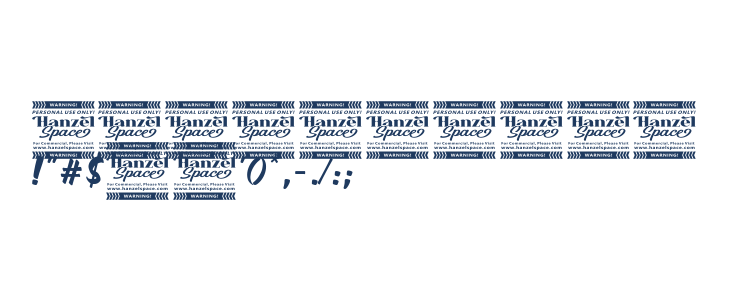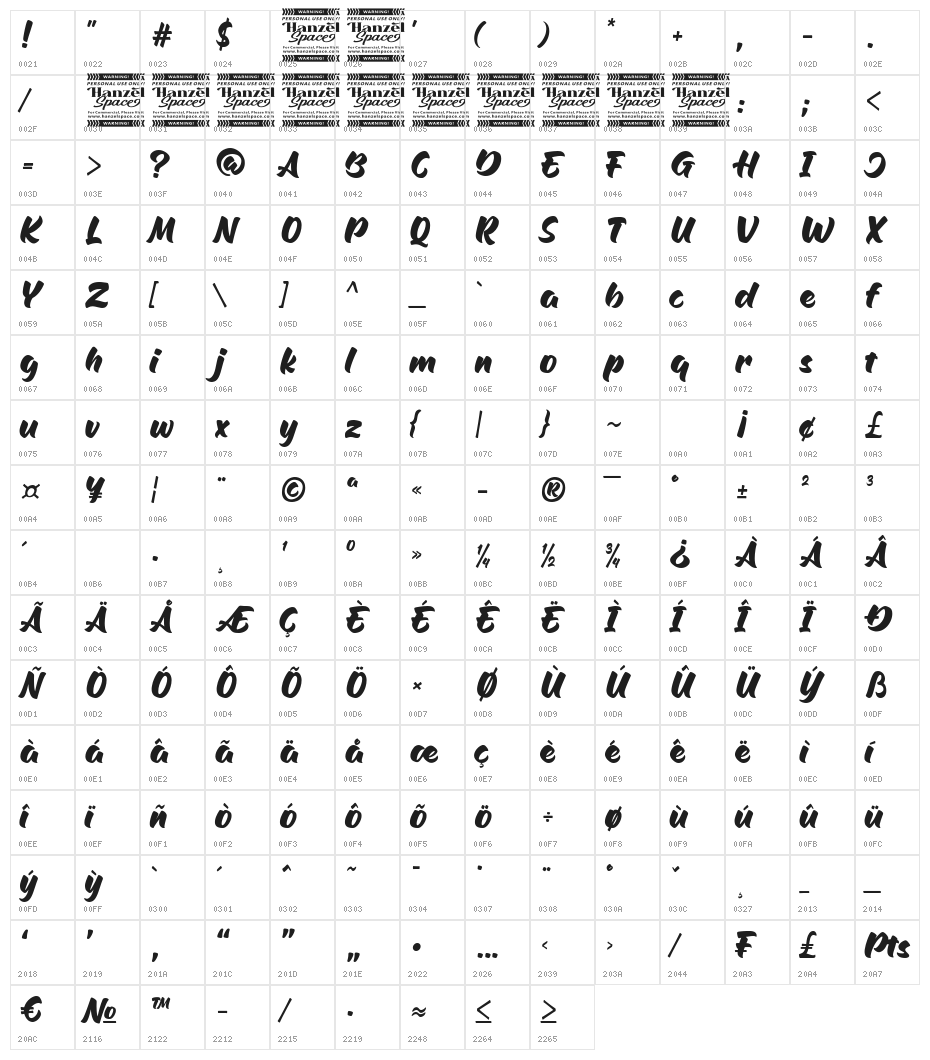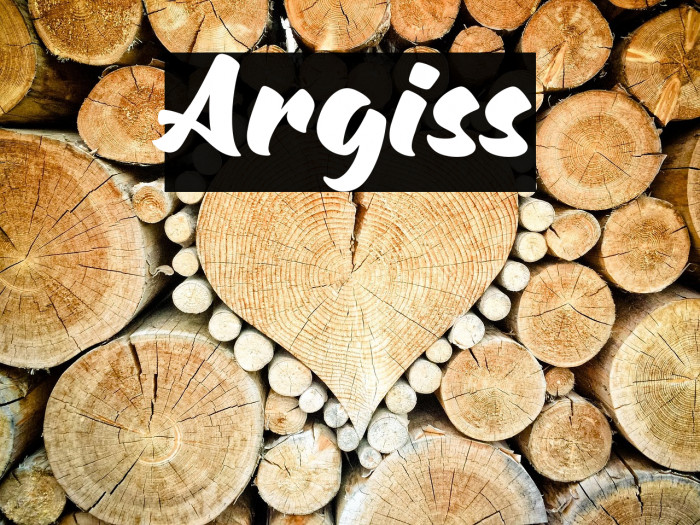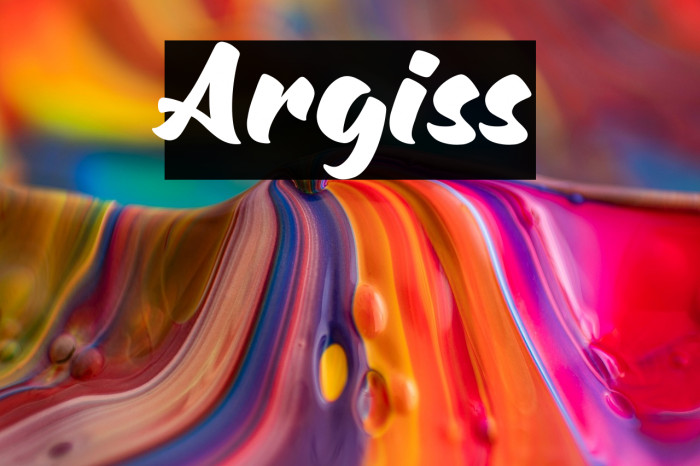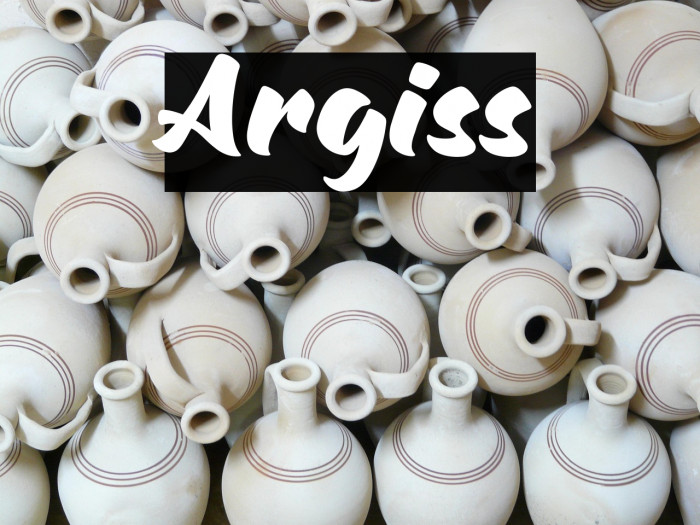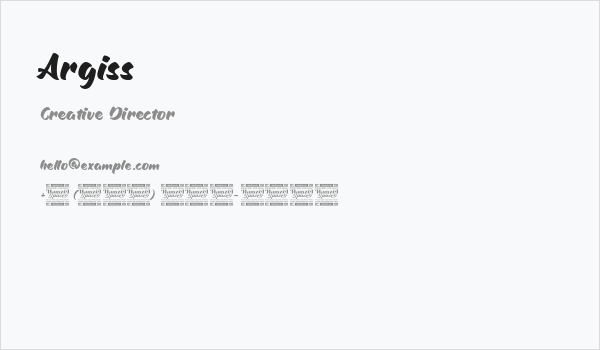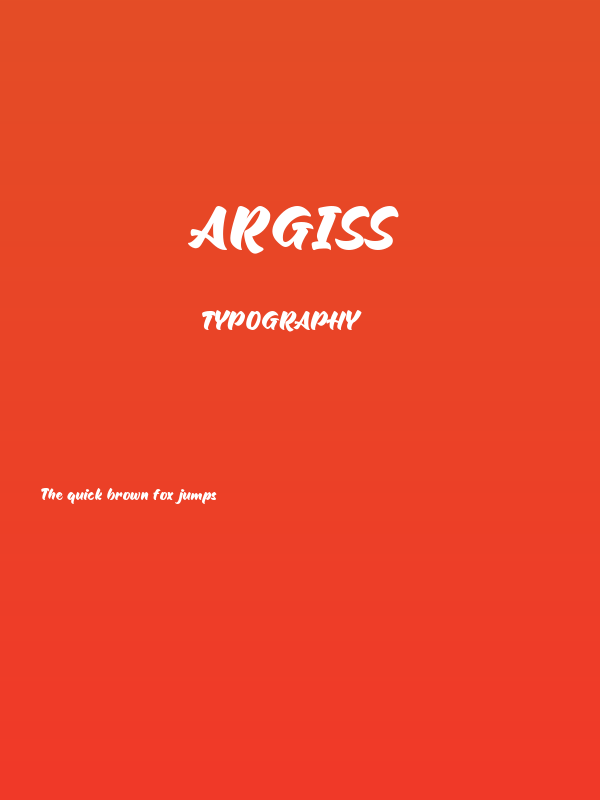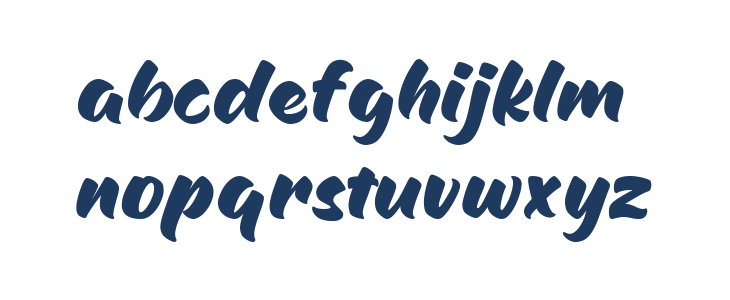
Argiss Font
Argiss Description
This font features a bold and dynamic script style with a strong presence. The characters are designed with a fluid, handwritten aesthetic, showcasing smooth curves and a consistent stroke width. The uppercase letters are slightly more angular, providing a striking contrast to the more rounded lowercase letters. The font maintains a cohesive look with its moderate character spacing, making it suitable for impactful and expressive text. The special characters are crafted to match the overall style, ensuring a seamless integration into various design projects.
| Use Case | Logos, Headlines, Branding |
| Proposed Projects | Ideal for branding, logos, headlines, and creative projects that require a personal touch. |